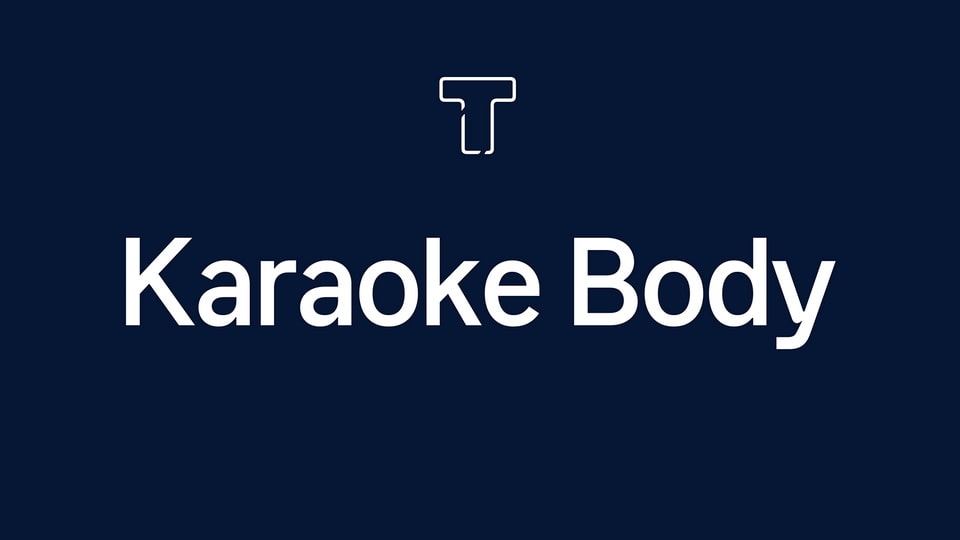
LT Karaoke Body Font Family › Fontesk
Download LT Karaoke Body font, a versatile sans serif typeface designed for readability and balance with its clean lines and well-proportioned letterforms.